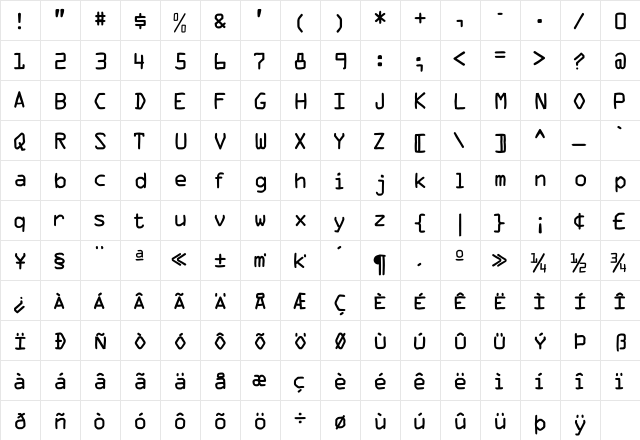
MKOCR Regular
Design Context for MKOCR Typeface
MKOCR is a composed and adaptable typeface that performs quietly and consistently across a wide range of design contexts.